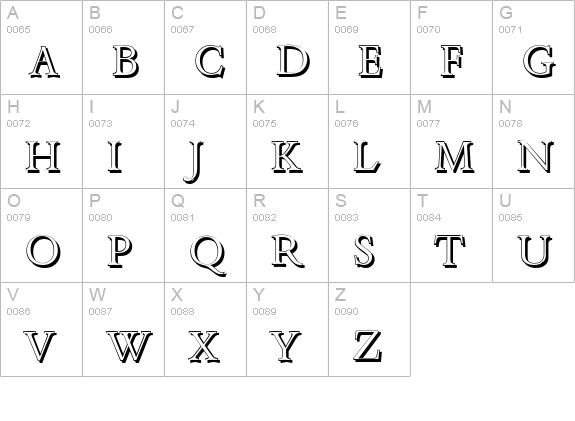
BambergShadow-Light-Regular is a refined, elegant variant in the BambergShadow typeface family \xE2\x80\x94 well suited to elegant body text, refined sub-headings, and luxury branding.
BambergShadow-Light-Regular is a stunning and versatile font that seamlessly combines a shadow effect with a light and elegant design. This font exudes a sense of sophistication and modernity, making it perfect for a wide range of design projects. The sleek lines and balanced letterforms of BambergShadow-Light-Regular create a harmonious and captivating visual impact. This font is available for free download at FontsMarket.com, making it a fantastic choice for designers and creatives looking to elevate their projects without breaking the bank. Whether you're working on branding, advertising, packaging, or any other creative endeavor, BambergShadow-Light-Regular is sure to add a touch of style and flair. Download this font today and unlock a world of design possibilities at your fingertips.